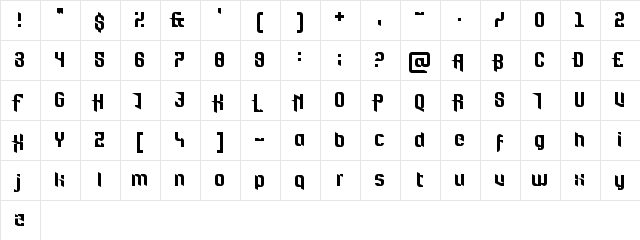
Fort Brewith Regular
Design Context for Fort Brewith Typeface
Fort Brewith is a composed and adaptable typeface that performs quietly and consistently across a wide range of design contexts.